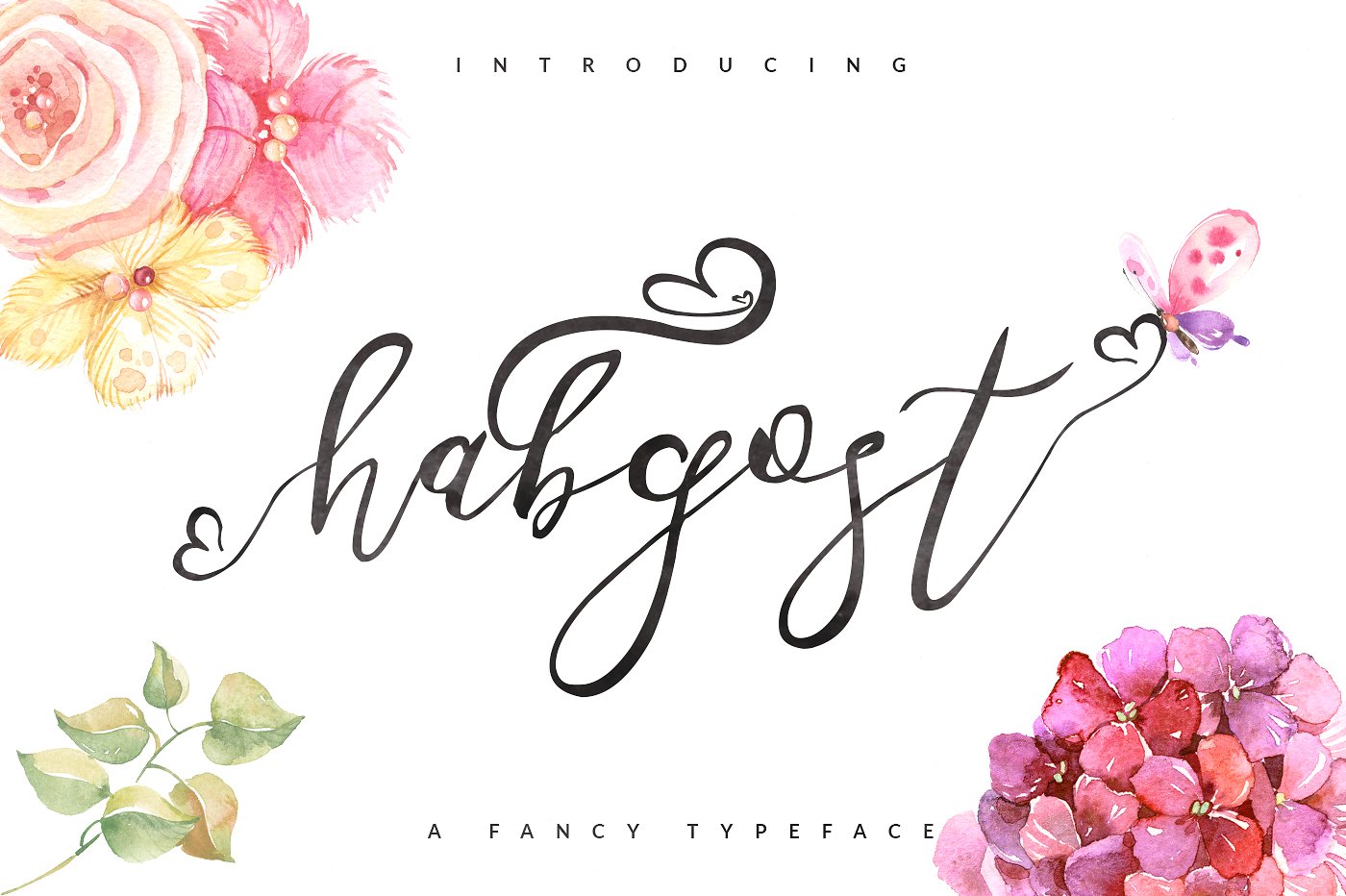
Habgost Script
Habgost Script Font
Habgost Script is a hand-made font created by using thick brush. It is a lovely font that the thickness of lines are charming. It can be easily used for t-shirts, bags, invitations and so on… It is becoming more interesting with swashes characters. Than you for viewing it. We hope you would like it.